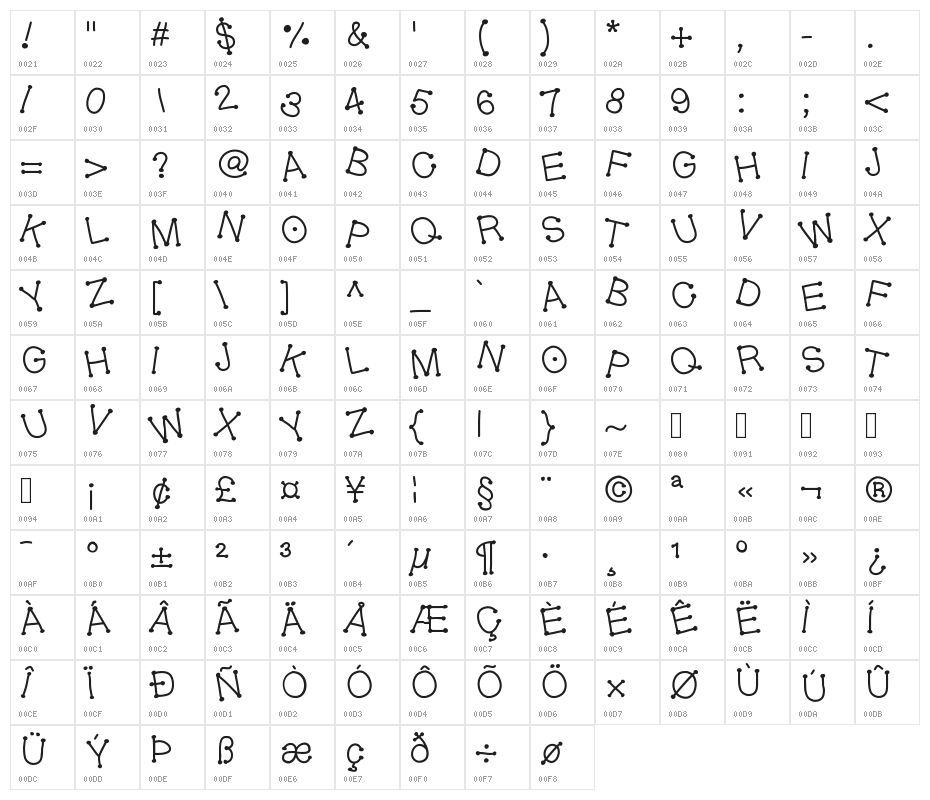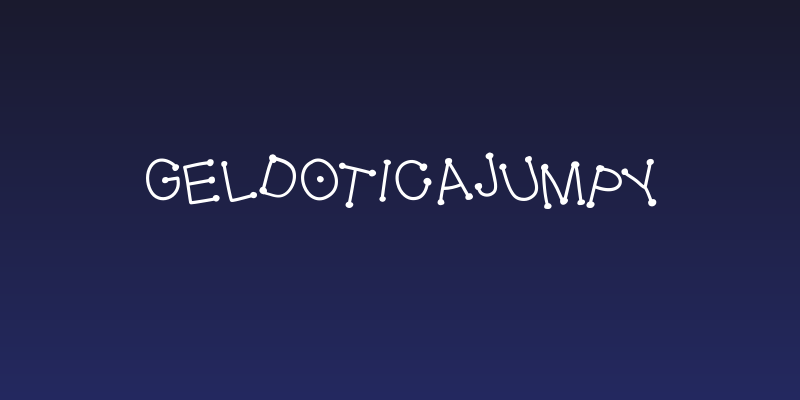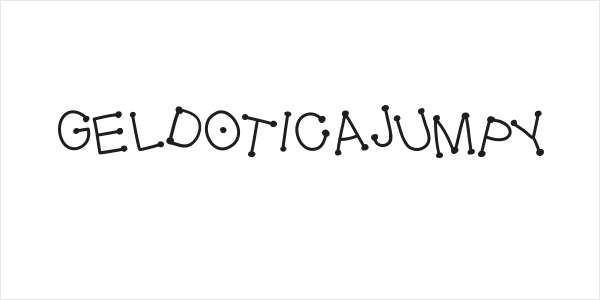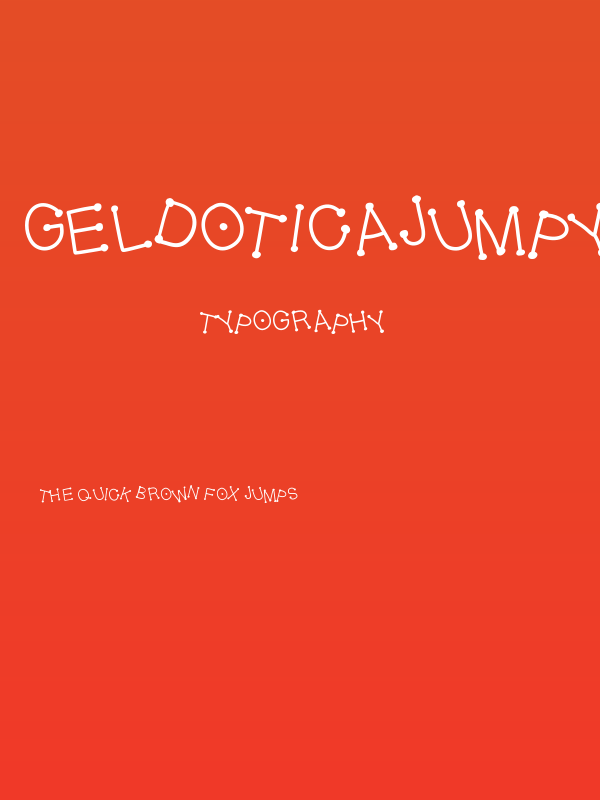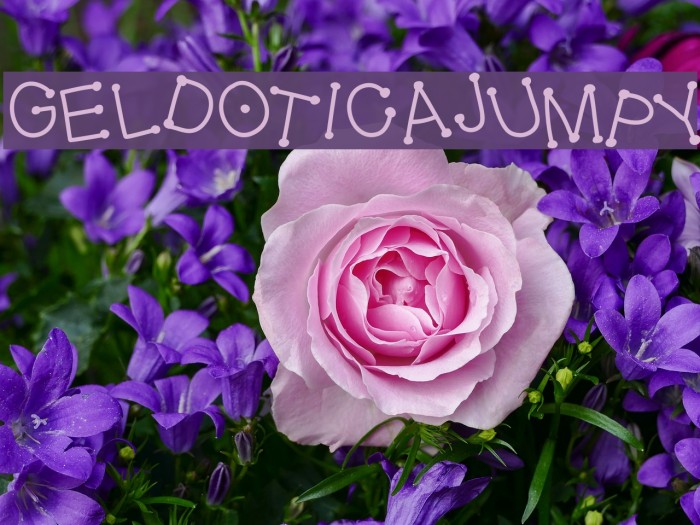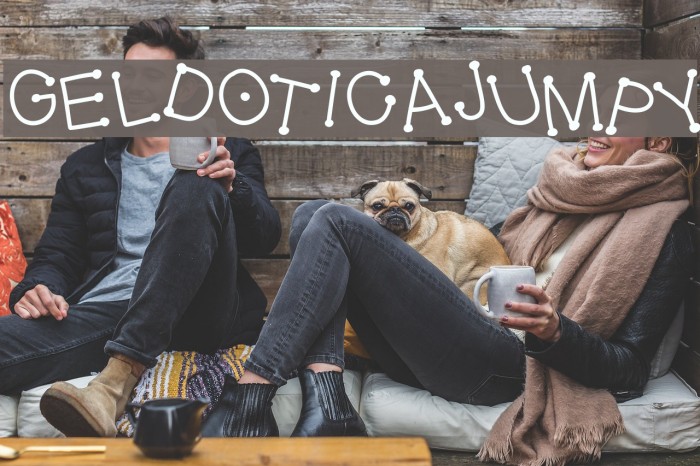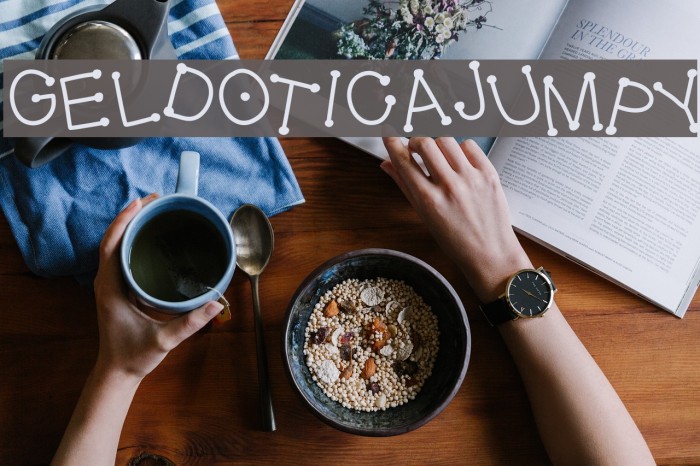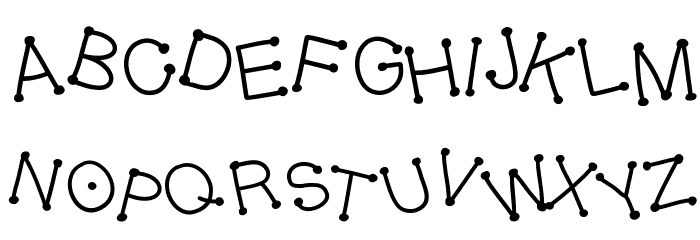
GelDoticaJumpy Font
GelDoticaJumpy Description
This playful and whimsical font features a unique design where each character is connected by dots, giving it a bouncy and lively appearance. The letters are crafted with a consistent stroke width, maintaining a uniform look throughout. The rounded edges and dot connections add a sense of fun and creativity, making it stand out in any design. The font includes both uppercase and lowercase letters, numbers, and a variety of special characters, ensuring versatility in its application. Its distinctive style is perfect for projects that require a touch of humor and light-heartedness.